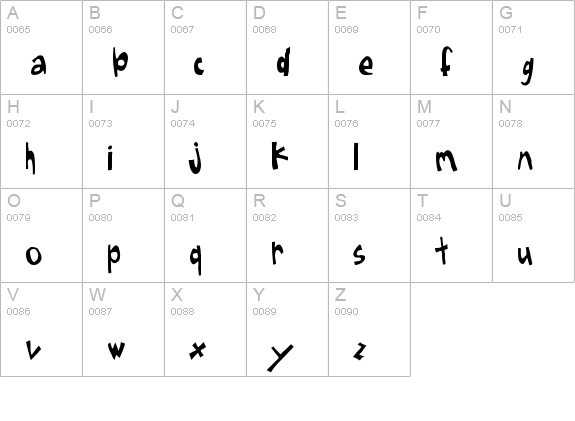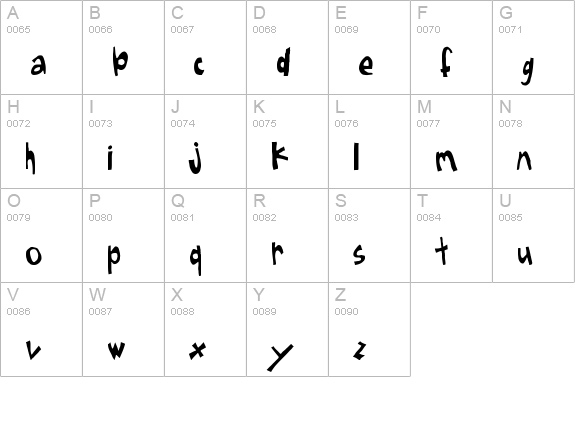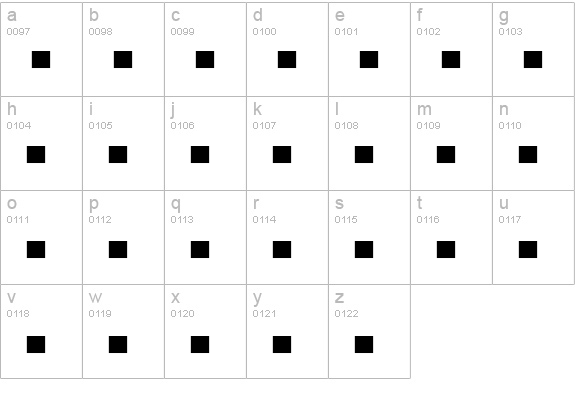
Sugarfish Font Details
Introducing Sugarfish font, a delightful and whimsical typeface that exudes charm and playfulness. This unique font features playful curves and a handcrafted feel that will bring a touch of joy to your design projects. Whether you are working on a poster, logo, or greeting card, Sugarfish font is sure to add a fun and friendly vibe. Best of all, Sugarfish font is completely free to download at FontsMarket.com. You can easily access this charming font and incorporate it into your designs without any cost. Don't miss out on the opportunity to add a sprinkle of sweetness to your projects with Sugarfish font!